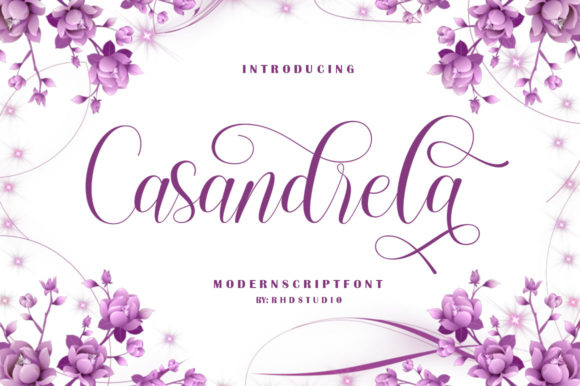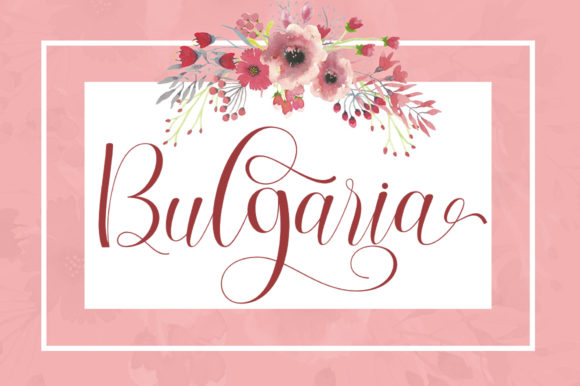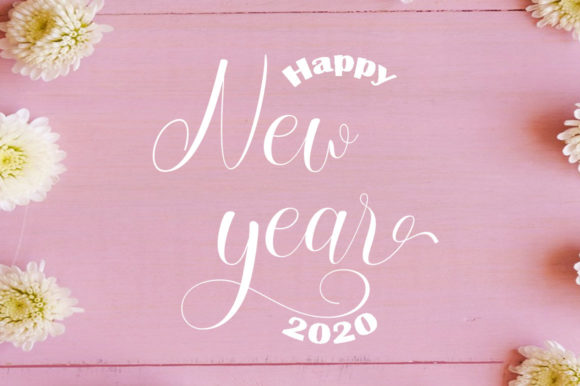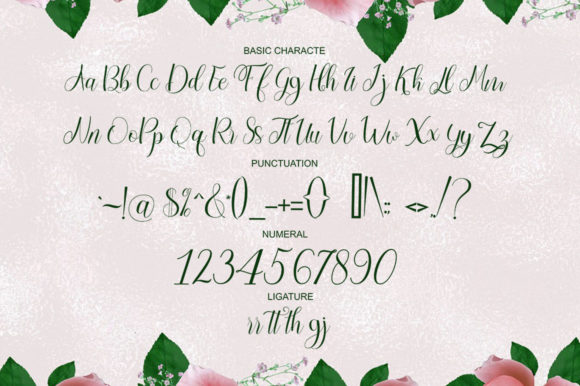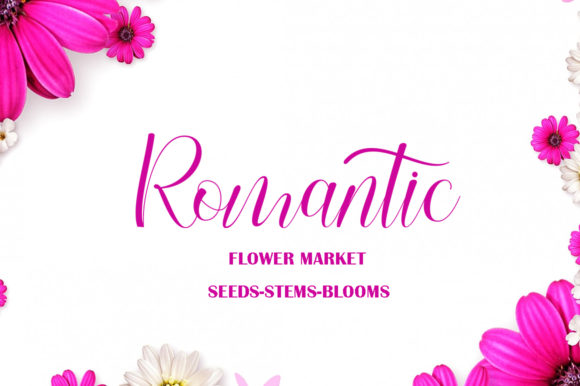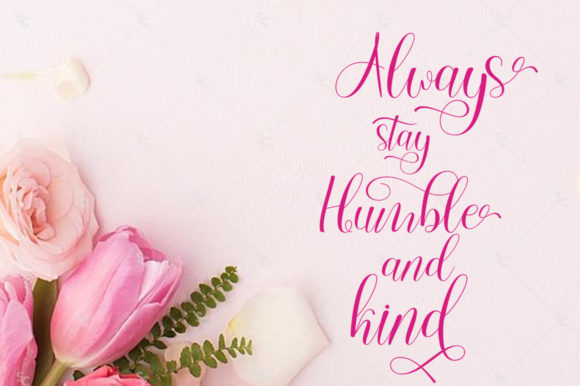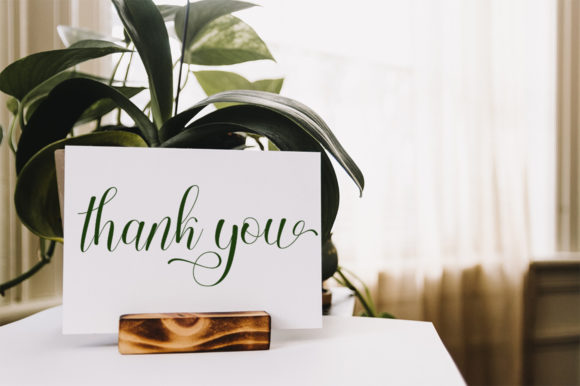
Casandrela Font
About Casandrela Font
Casandrela is a sophisticated handwritten font. Fall in love with its authentic feel and use it to create gorgeous wedding invitations, beautiful stationary art, eye-catching social media posts, and cute greeting cards.